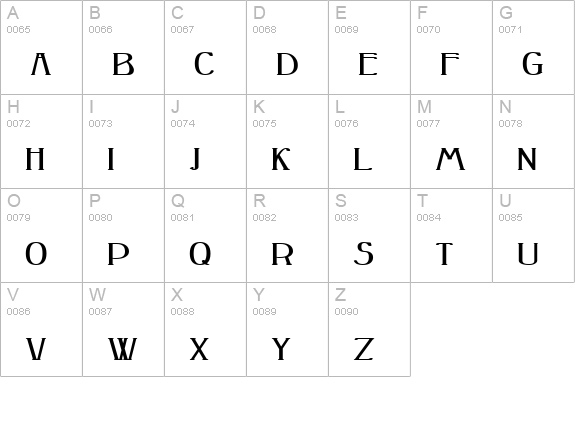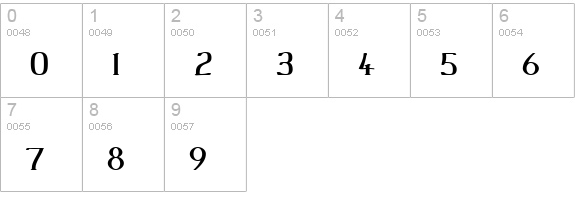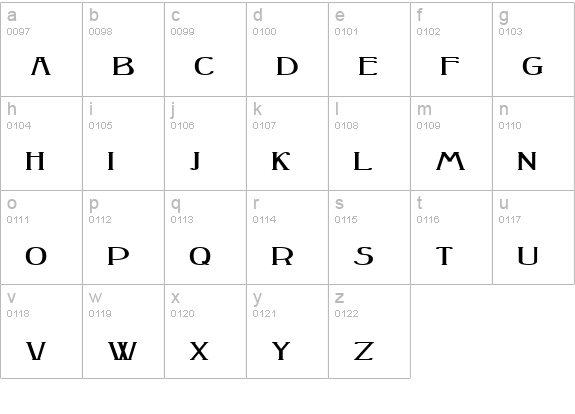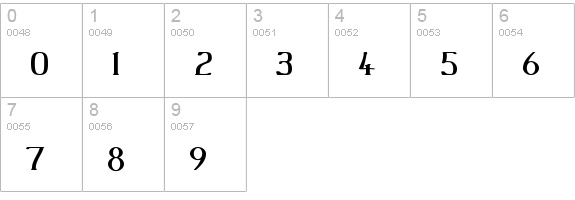
Peake-Squat Bold Font Details
Peake-Squat Bold is a strong, high-contrast variant in the Peake typeface family \xE2\x80\x94 well suited to headlines, attention-grabbing titles, and strong calls-to-action.
Introducing Peake-Squat Bold, a captivating and dynamic font that effortlessly commands attention. With its strong and assertive letterforms, Peake-Squat Bold exudes confidence and power, making it the perfect choice for headlines, logos, and any design project that requires a bold statement. This font's unique blend of sleek curves and sharp edges creates a harmonious balance that is both modern and timeless. Its bold weight ensures maximum impact, allowing your message to stand out in a sea of ordinary typography. But what truly sets Peake-Squat Bold apart is its accessibility. It is freely available to download at FontsMarket.com, allowing designers, creatives, and enthusiasts alike to harness its captivating potential without any obstacles. This font not only empowers your designs but also empowers you by providing a versatile and powerful tool that is within reach for everyone. Whether you're designing a striking poster, an eye-catching website, or a memorable branding campaign, Peake-Squat Bold will elevate your creations to new heights. Its versatility and strong presence make it a go-to choice for professionals and amateurs alike, ensuring that your designs make an indelible impression on your audience. Embrace the boldness and unleash your creativity with Peake-Squat Bold. Download it for free at FontsMarket.com and let its captivating charm transform your designs into masterpieces that leave a lasting impact.